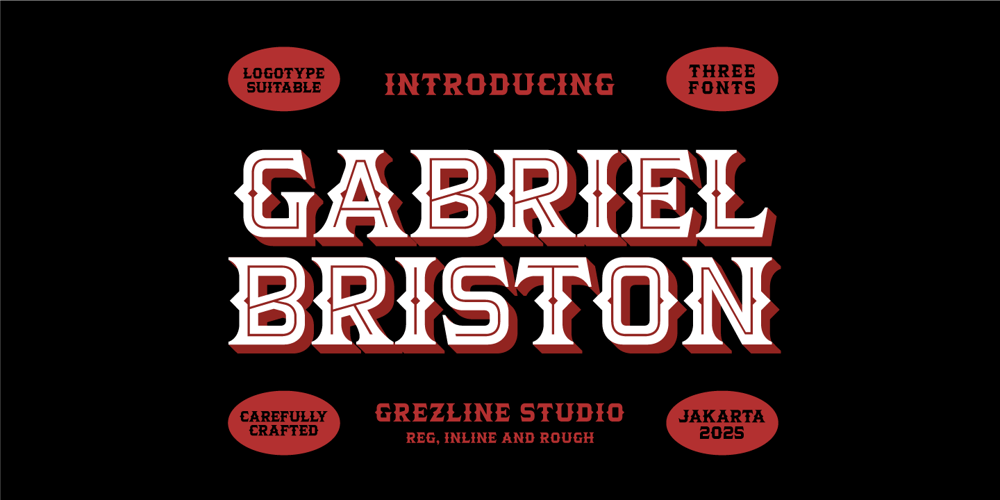
Gabriel Briston Font Family was designed by Akhmad Reza Fauzi and published by Grezline Studio. Gabriel Briston contains 3 styles and family package options. Gabriel Briston is a sporty modern display font. Gabriel Briston font is ideal for logos, posters, packaging, banner, and other creative projects that demand visually aesthetic and distinctive elements. Feature :- Multilingual Language- Works on PC & Mac- Simple installations- Accessible in the Adobe Illustrator, Adobe Photoshop, Adobe InDesign, even works on Microsoft Word.Thank you!Grezline Studio – Akhmad Reza Fauzi